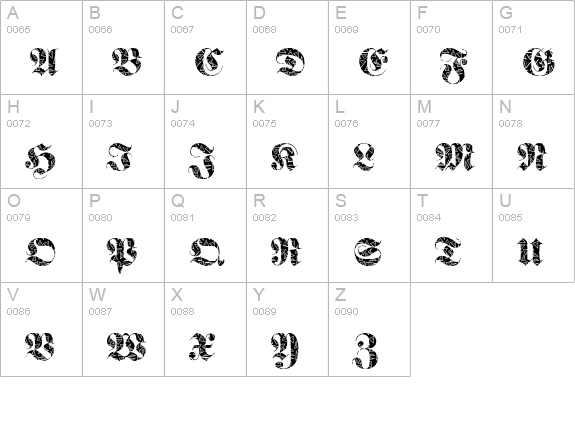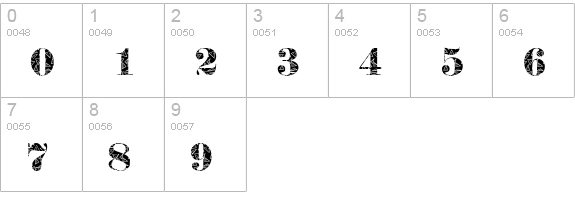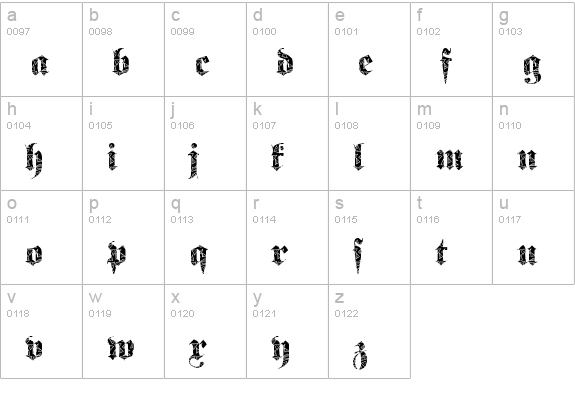
FrakturBrokenGlass-Regular Font Details
FrakturBrokenGlass-Regular is the standard, neutral variant in the FrakturBrokenGlass typeface family \xE2\x80\x94 well suited to general body text, paragraphs, and standard typographic work.
FrakturBrokenGlass-Regular is a unique and eye-catching font that combines the elegance of traditional Fraktur typefaces with a modern twist, resembling shattered glass. The sharp edges and broken lines give a sense of edginess and sophistication to any design project. This font is perfect for adding a touch of drama and intrigue to posters, logos, invitations, and more. Best of all, FrakturBrokenGlass-Regular is available for free download at FontsMarket.com. Whether you're a designer looking to experiment with a bold new typeface or a creative individual in need of a fresh look for your projects, this font is a fantastic choice. Download it today and add a touch of artistic flair to your work!